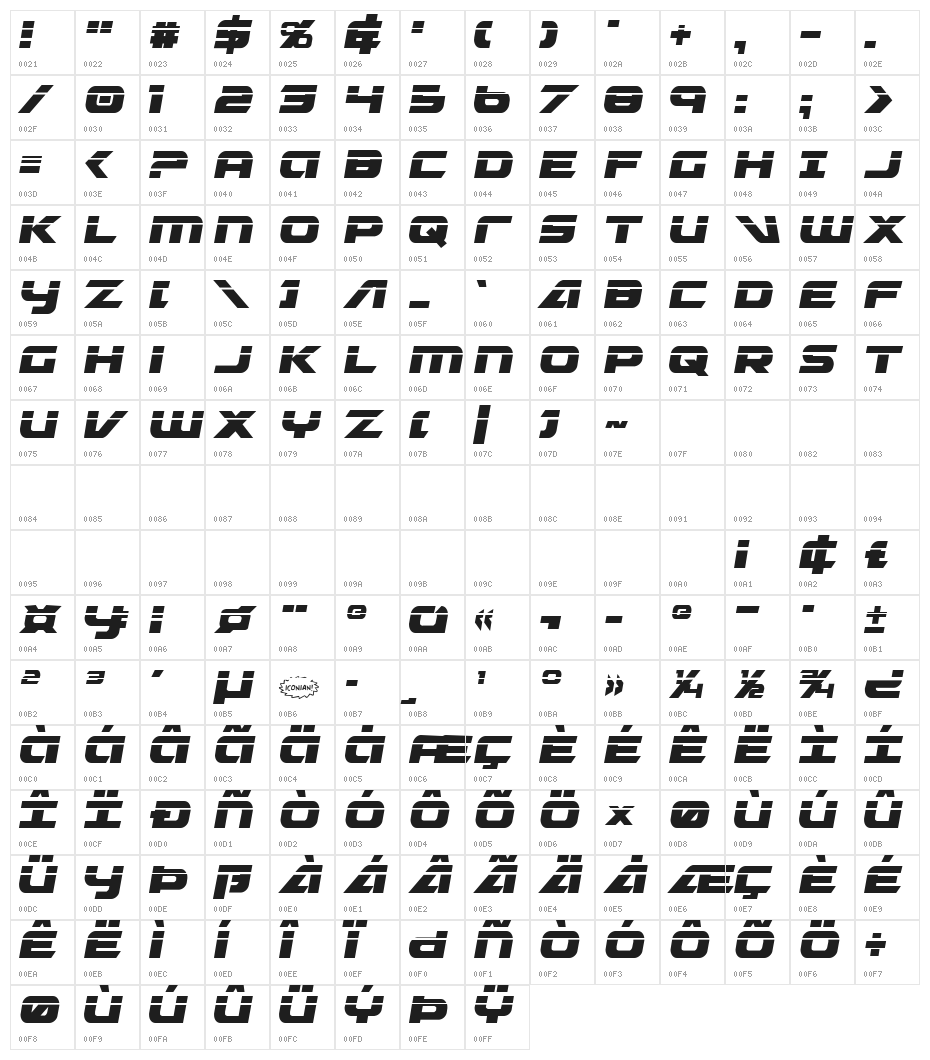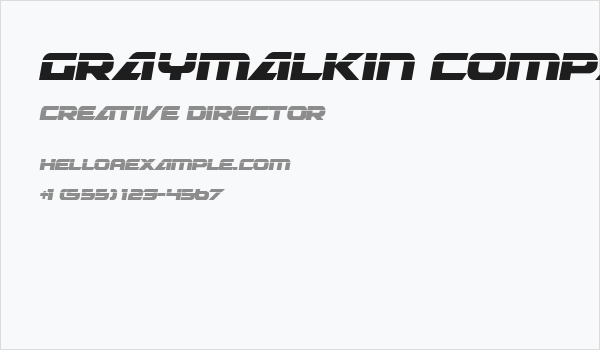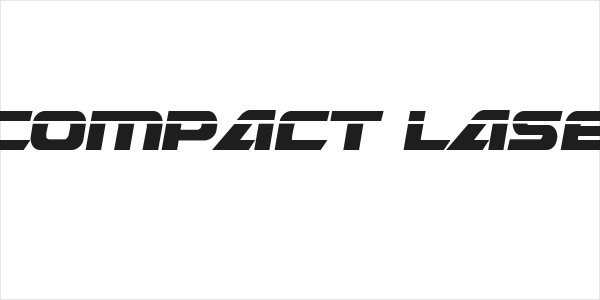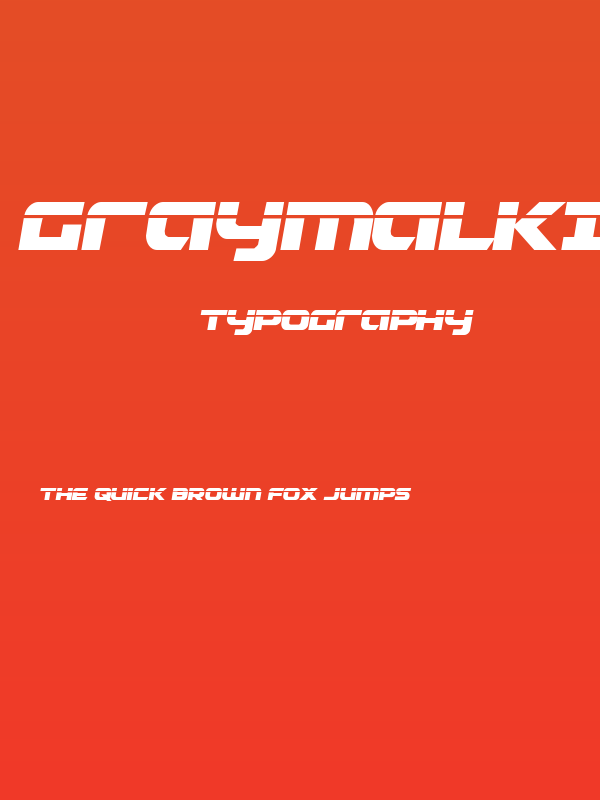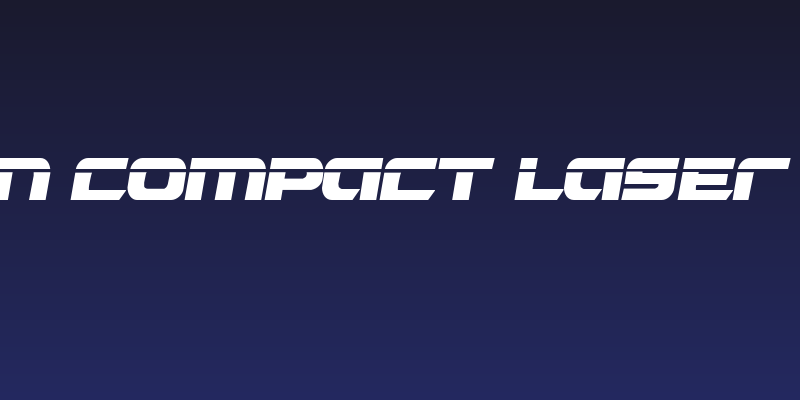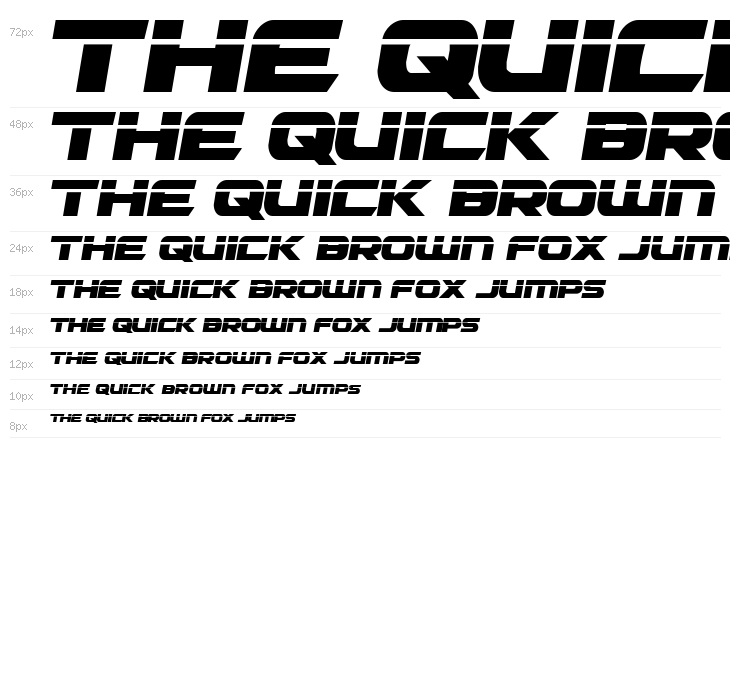
Graymalkin Compact Laser Condensed Font
Graymalkin Compact Laser Condensed Description
This font features a futuristic and angular design, characterized by sharp edges and a sleek, compact appearance. The letters are tightly spaced, creating a sense of urgency and modernity. The uppercase and lowercase letters maintain a consistent style, with a strong emphasis on geometric shapes and straight lines. The numbers and special characters follow the same design principles, ensuring uniformity across all glyphs. This font is ideal for projects that require a bold and dynamic look, such as technology branding, sci-fi themes, or modern advertising.